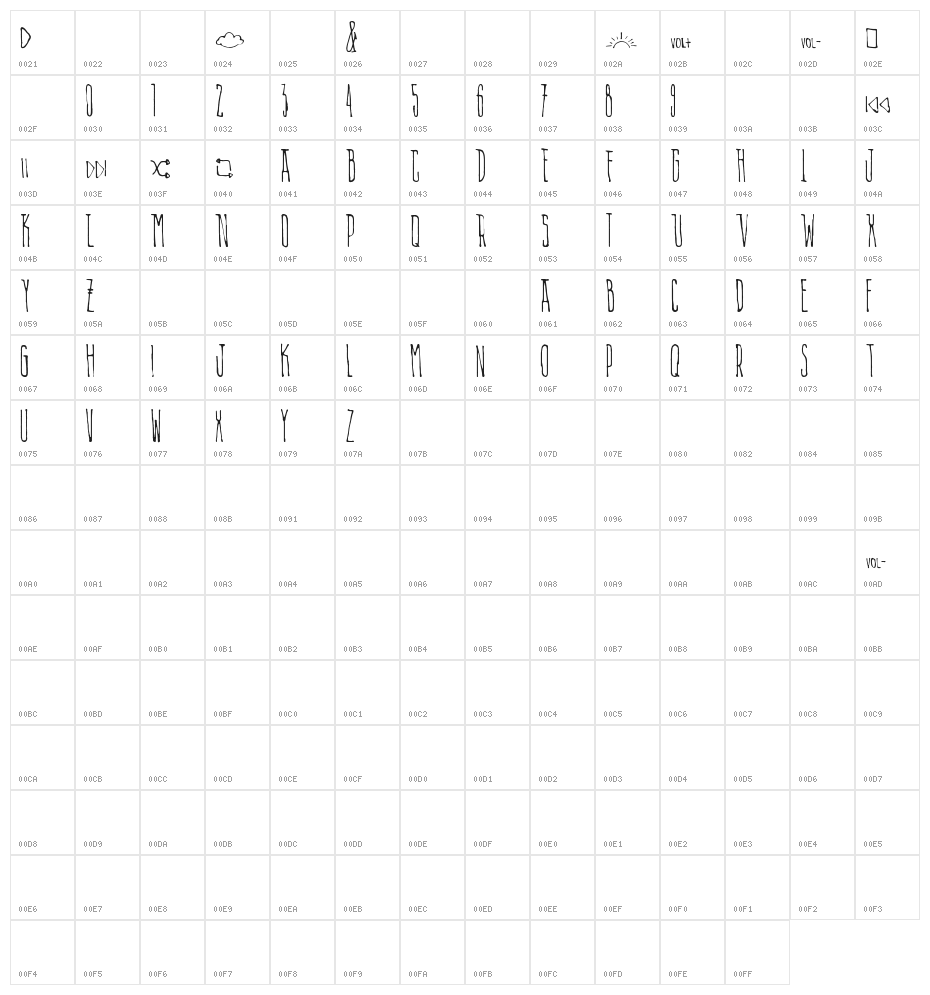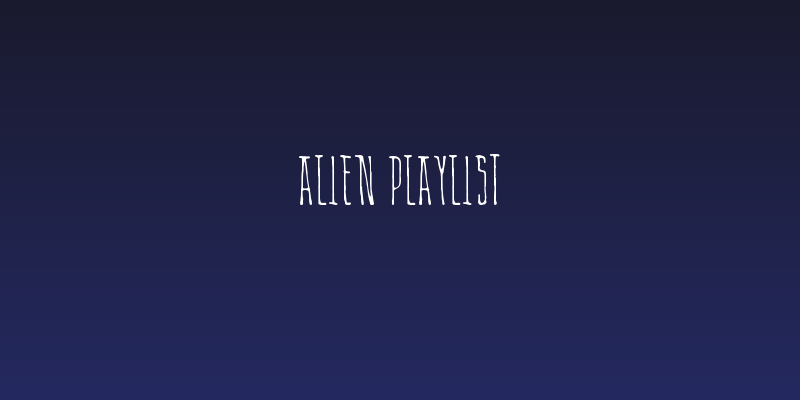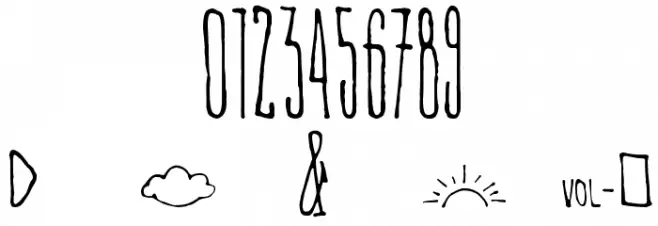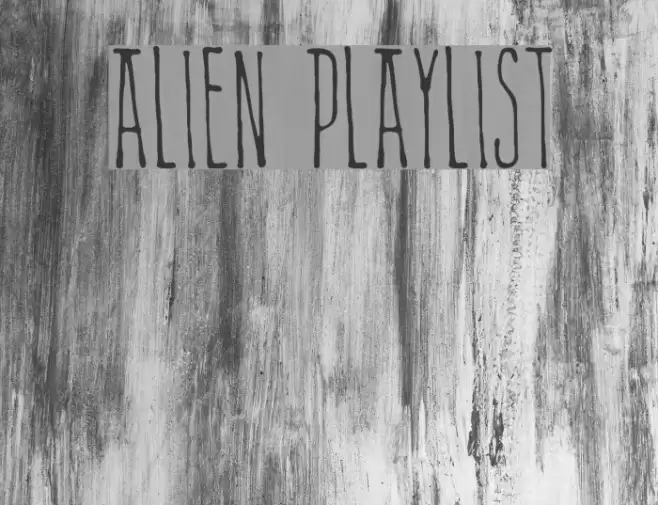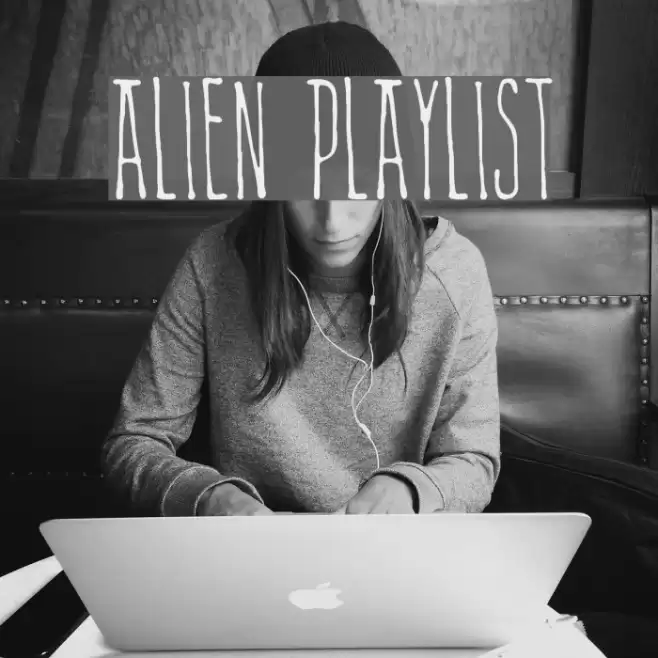
Alien Playlist Font
Alien Playlist Description
This font features a unique, elongated design with a hand-drawn aesthetic. The characters are tall and narrow, with irregular strokes that give it a quirky and playful appearance. The uppercase and lowercase letters maintain a consistent style, while the numbers and special characters complement the overall look. The font's organic feel is emphasized by its uneven lines and slight variations in character width, adding to its charm and individuality.
| Width | Condensed |
| Overall Style | Playful, Hand-drawn |
| Use Case | Logos, Posters, Creative projects |
| Proposed Projects | Ideal for creative projects such as album covers, posters, or children's book illustrations where a playful and unique style is desired. |